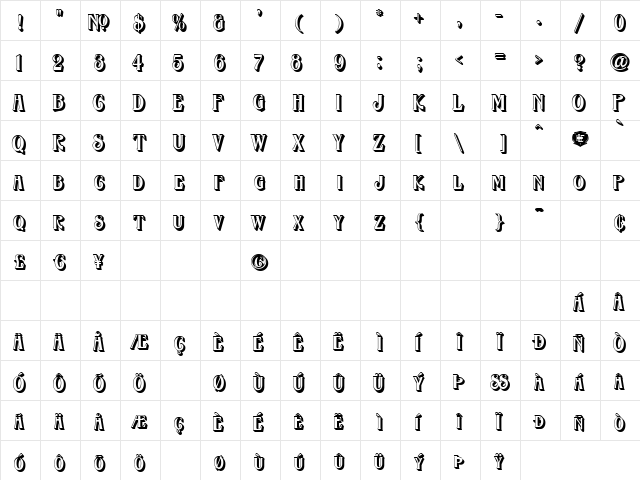
LHF Havana SHADOW Regular
Design Context for LHF Havana SHADOW Typeface
LHF Havana SHADOW is built around its visual character rather than neutral utility — its distinctive forms are designed to make an impression at display sizes.
Font Pairing: Pair with a clean neutral sans-serif for body copy to let LHF Havana SHADOW's character lead without overwhelming the composition.
Pro Tip: Treat LHF Havana SHADOW as the centrepiece of your typographic hierarchy. One strong heading set in a decorative face can carry an entire layout.